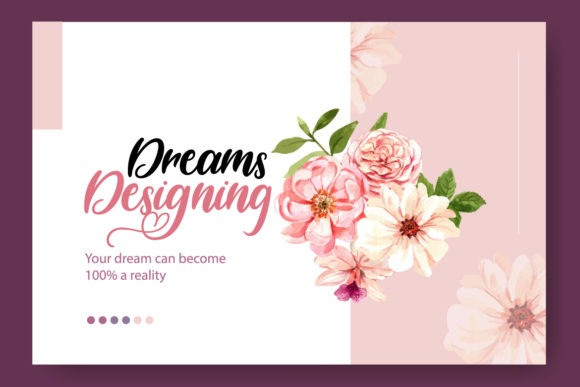
Flower Christmas Calligraphy Font
Flower Christmas is a warm, romantic and cursive handwritten font. It is ideal for holiday-themed greeting cards and for any crafting project that requires a romantic touch.